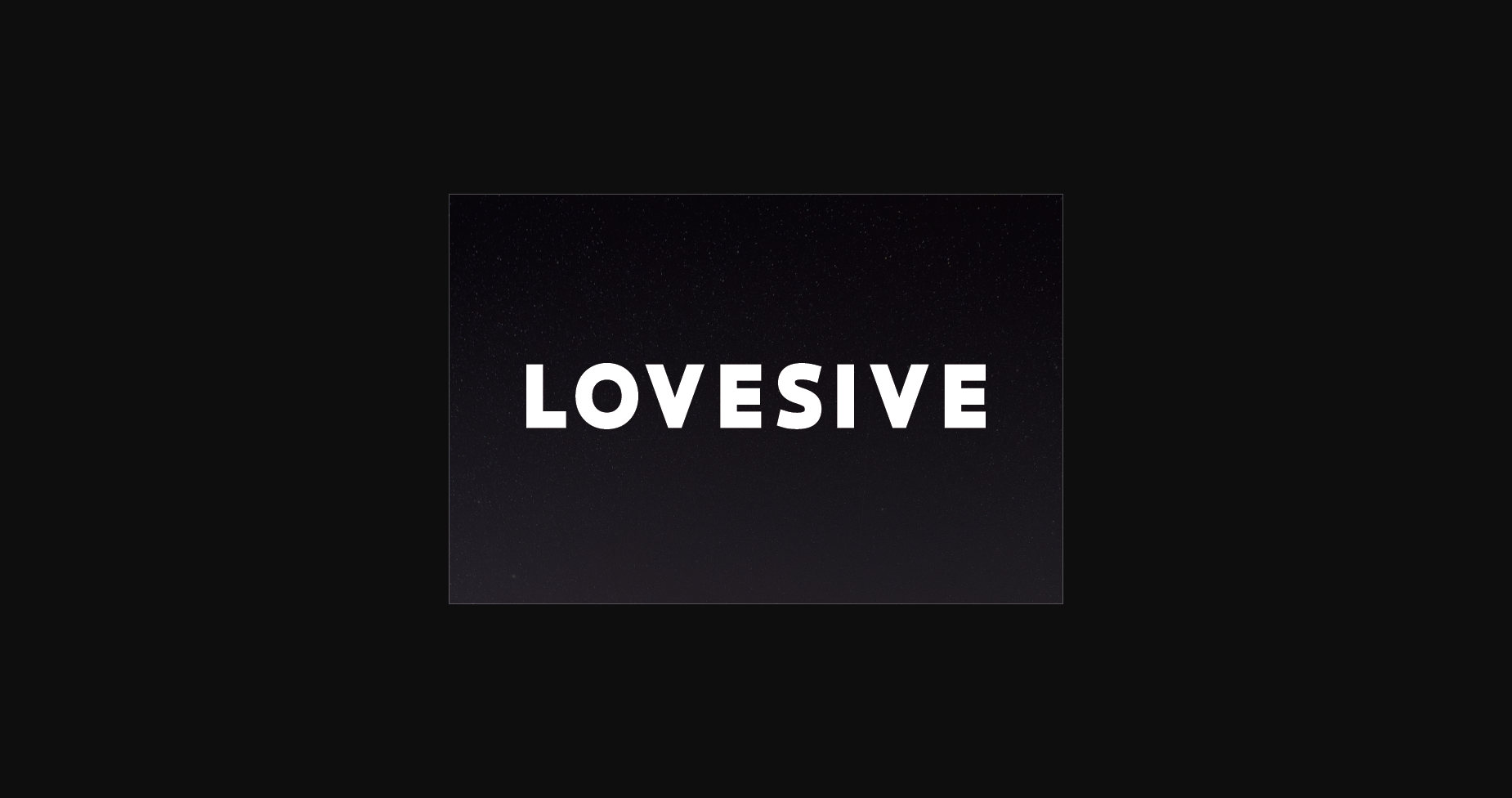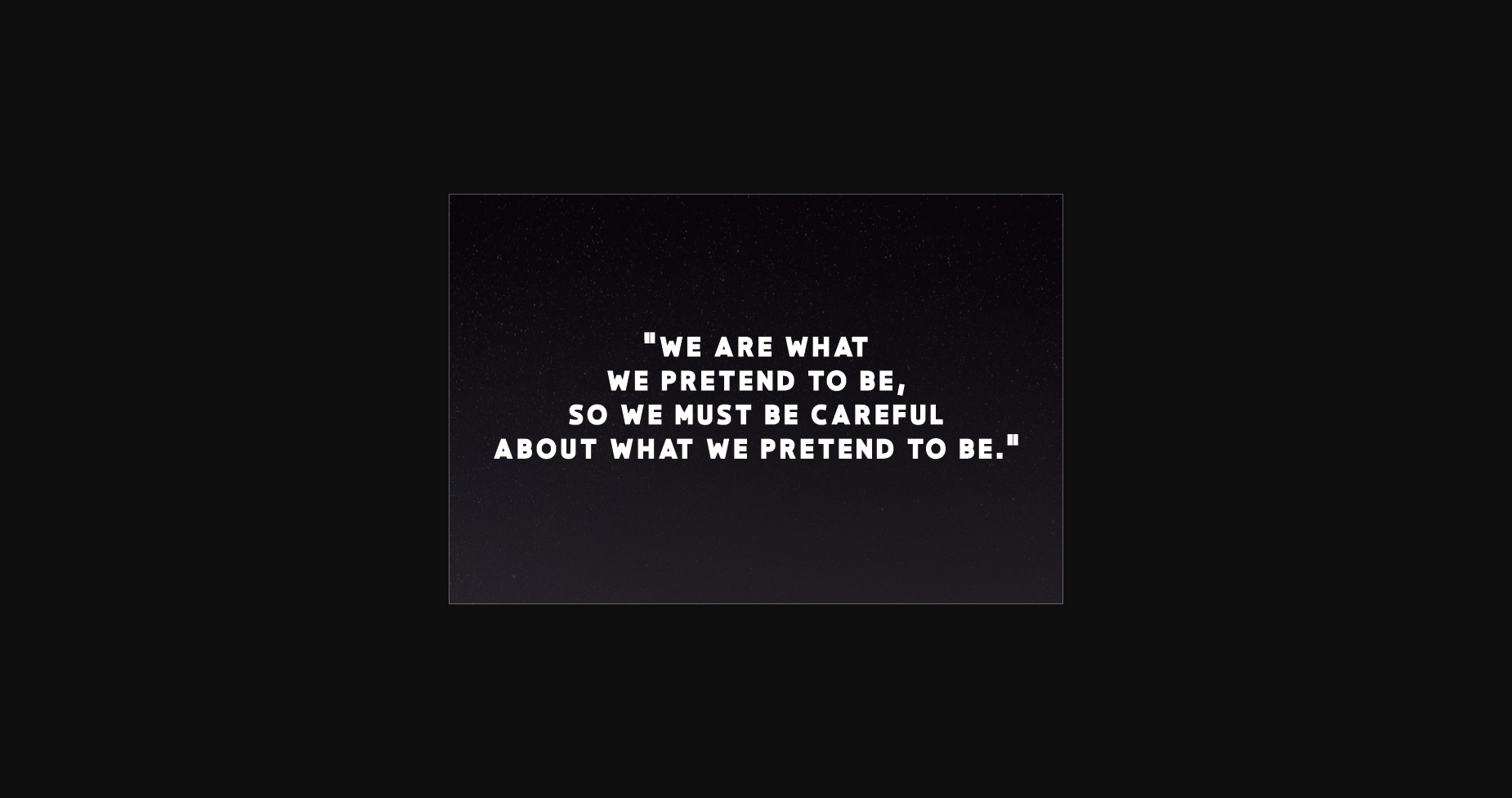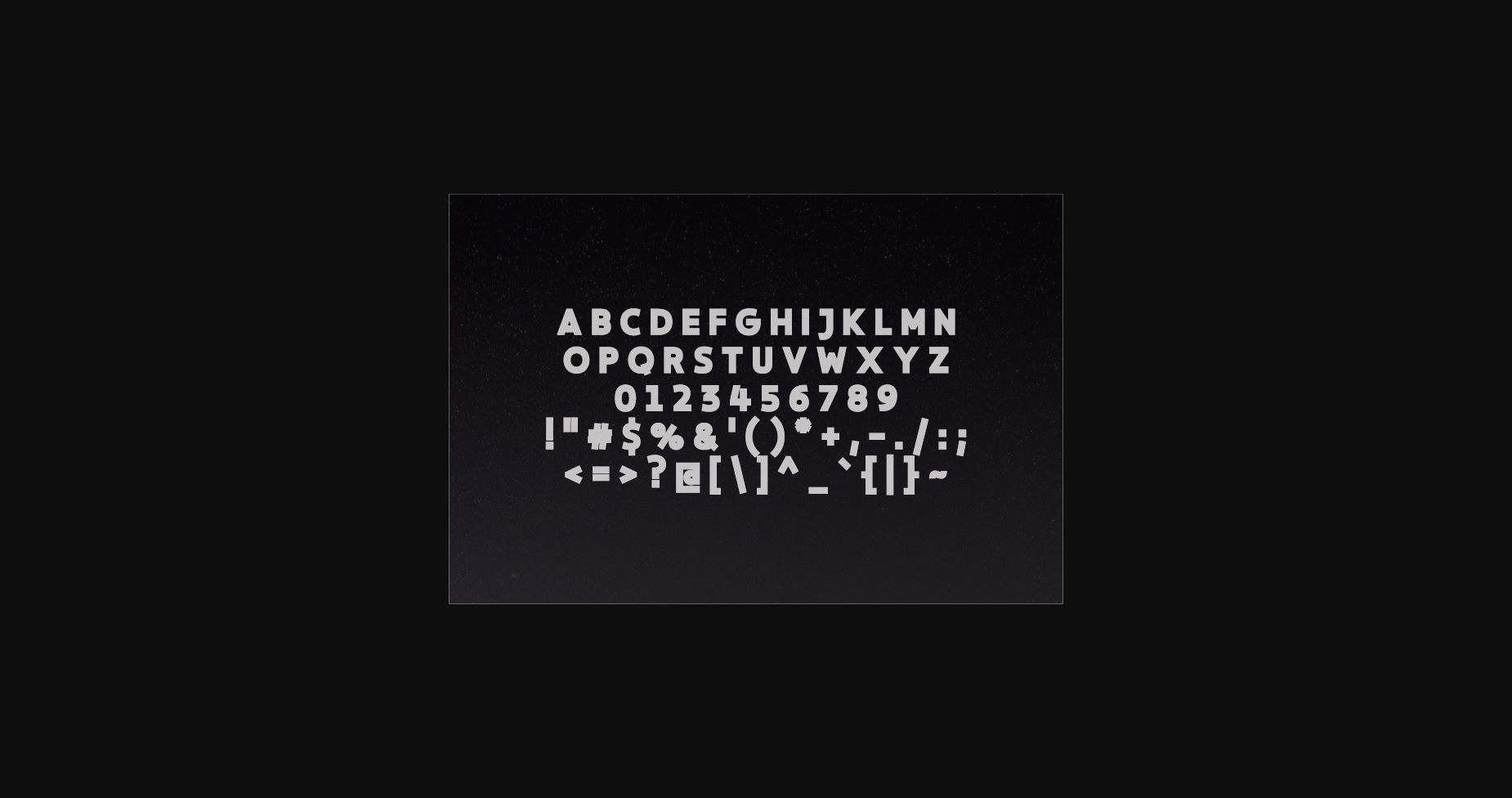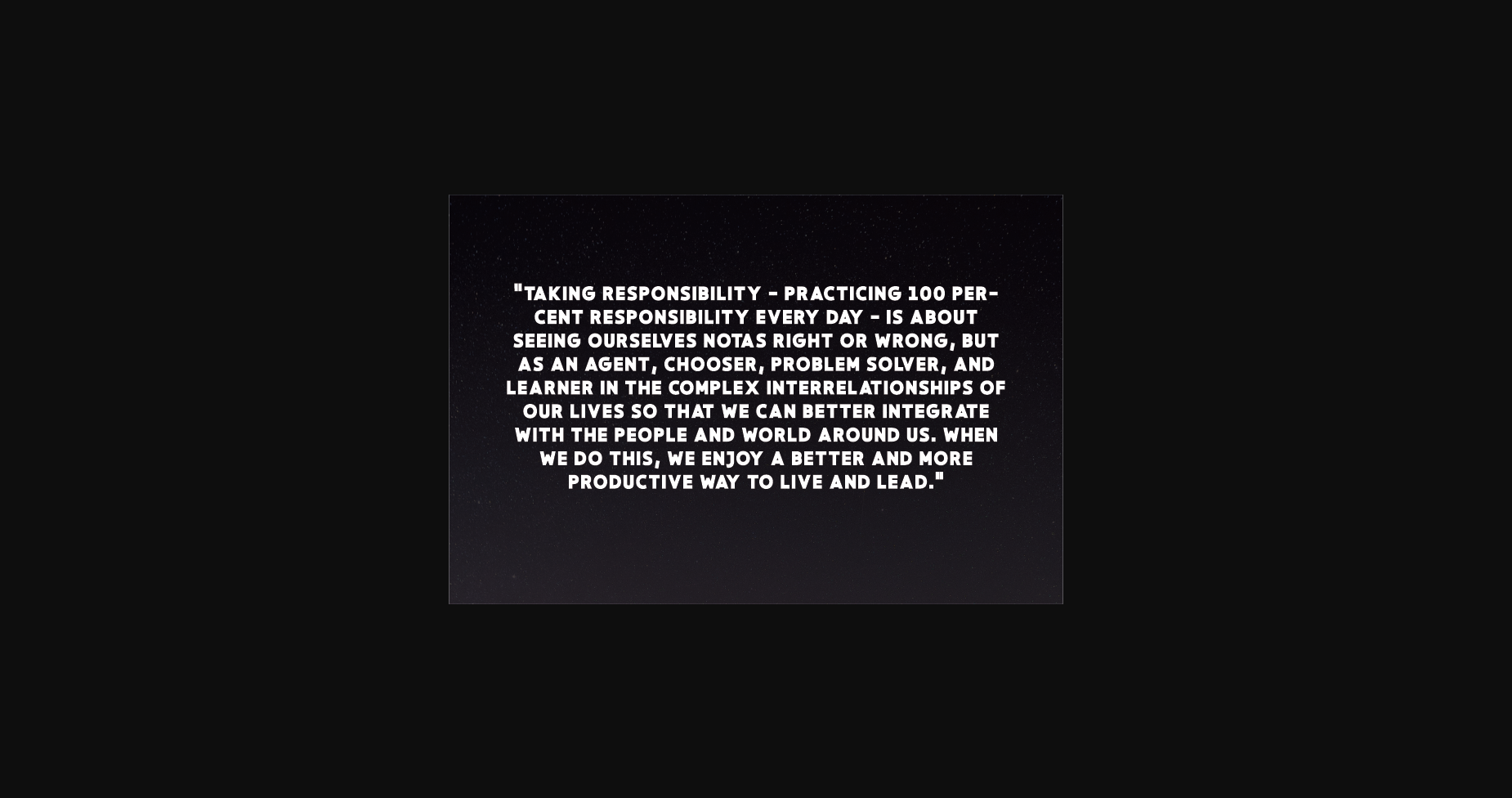
Lovesive Font
About Lovesive Font
Lovesive is a modern, classy sans serif typeface. It is suitable for logotype, headline font, in corporate identity, brand identity, apparel industry, poster, music, movie, game, magazine, book, comic, cartoon, YouTube, Instagram, website, or any of your creative design projects.